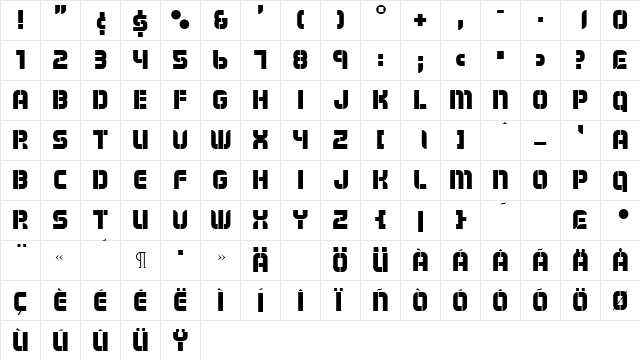
Modsten Bold
Design Context for Modsten Typeface
Modsten takes a measured approach to typography — its balanced proportions and neutral character make it a reliable workhorse for both digital and print work. Its bold stroke weight gives it real presence on the page.